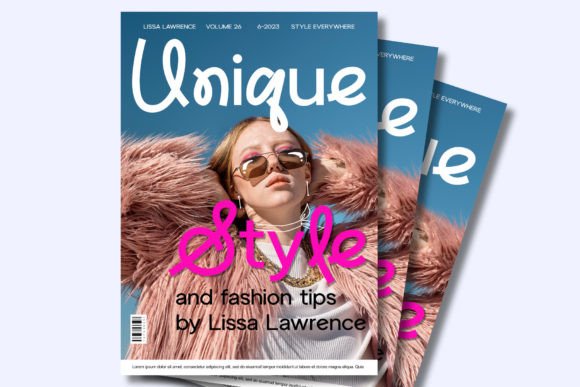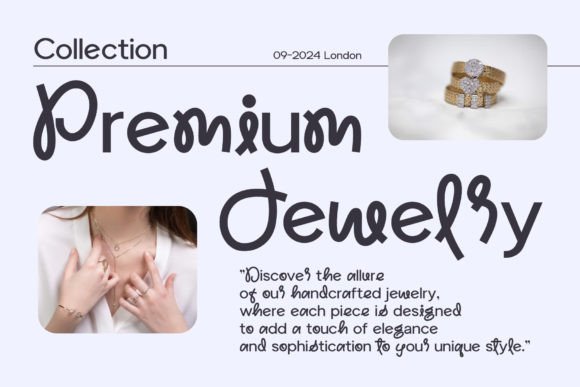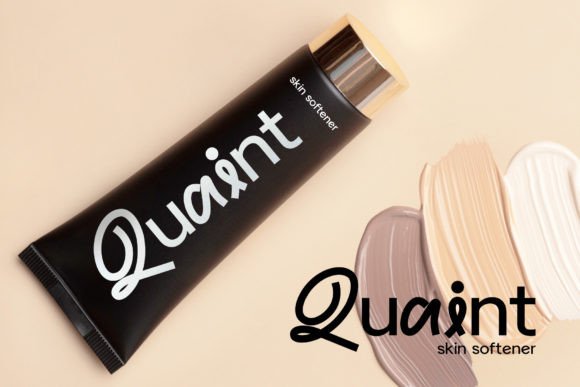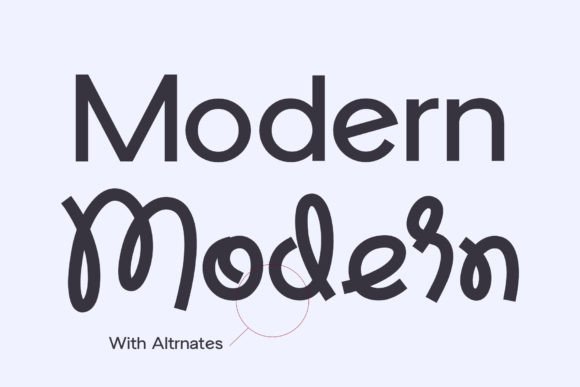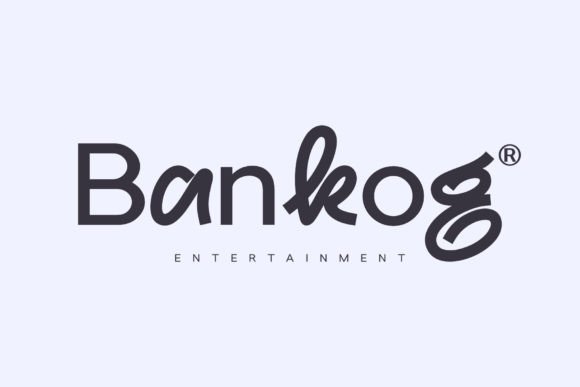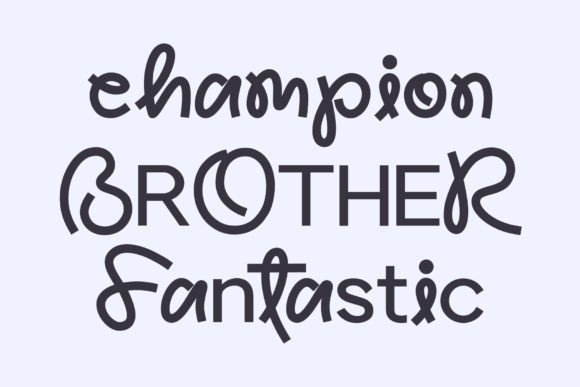
Introduction to Segals Font
Segals is a cutting-edge font with sleek curves and a contemporary design.
This font is designed to elevate your project with a sophisticated and captivating look Segals is ideal for a wide range of creative applications, including logos, advertisements, photography watermarks, stationery, branding projects, magazine layouts, invitations, corporate identities, product designs, labels, business projects, and many other endeavors that require a touch of elegance.
Key Features of Segals Font
Why Choose Segals Font?
Segals Font offers exceptional quality and versatility, making it a valuable addition to your design toolkit. Whether you’re creating for personal projects or commercial use, Segals Font delivers professional results.